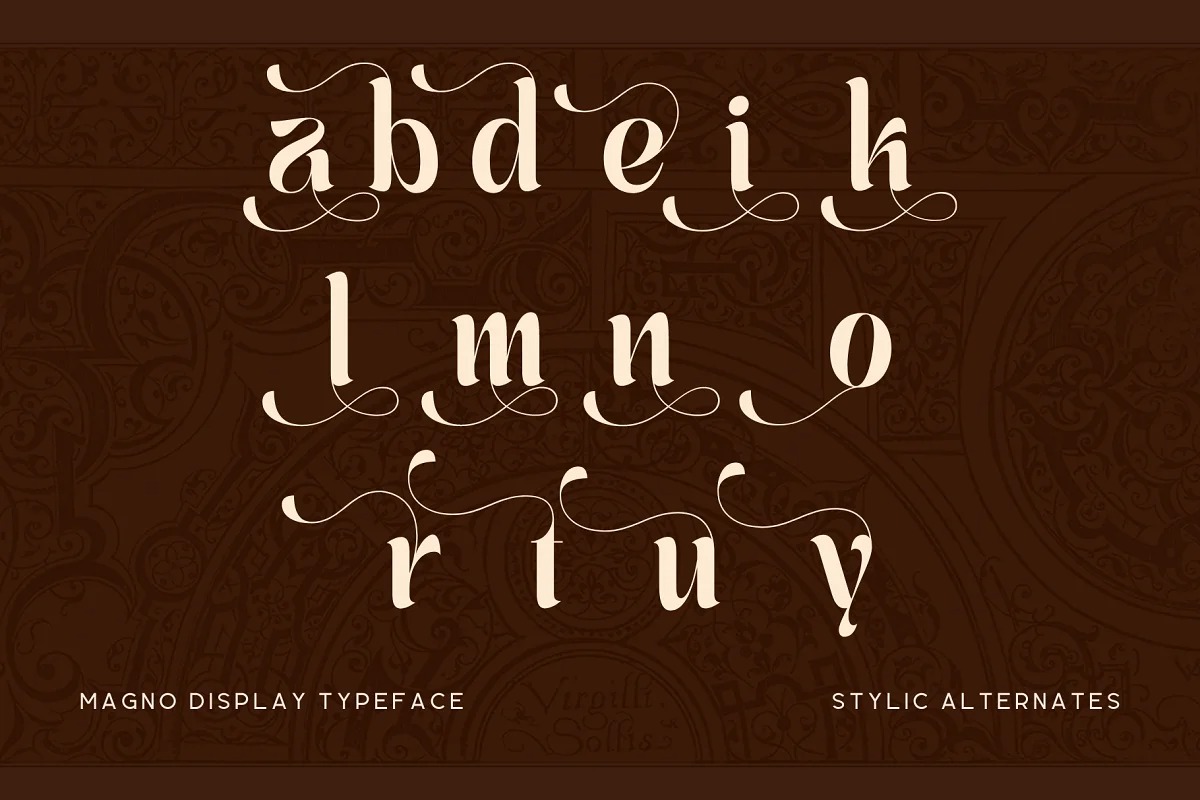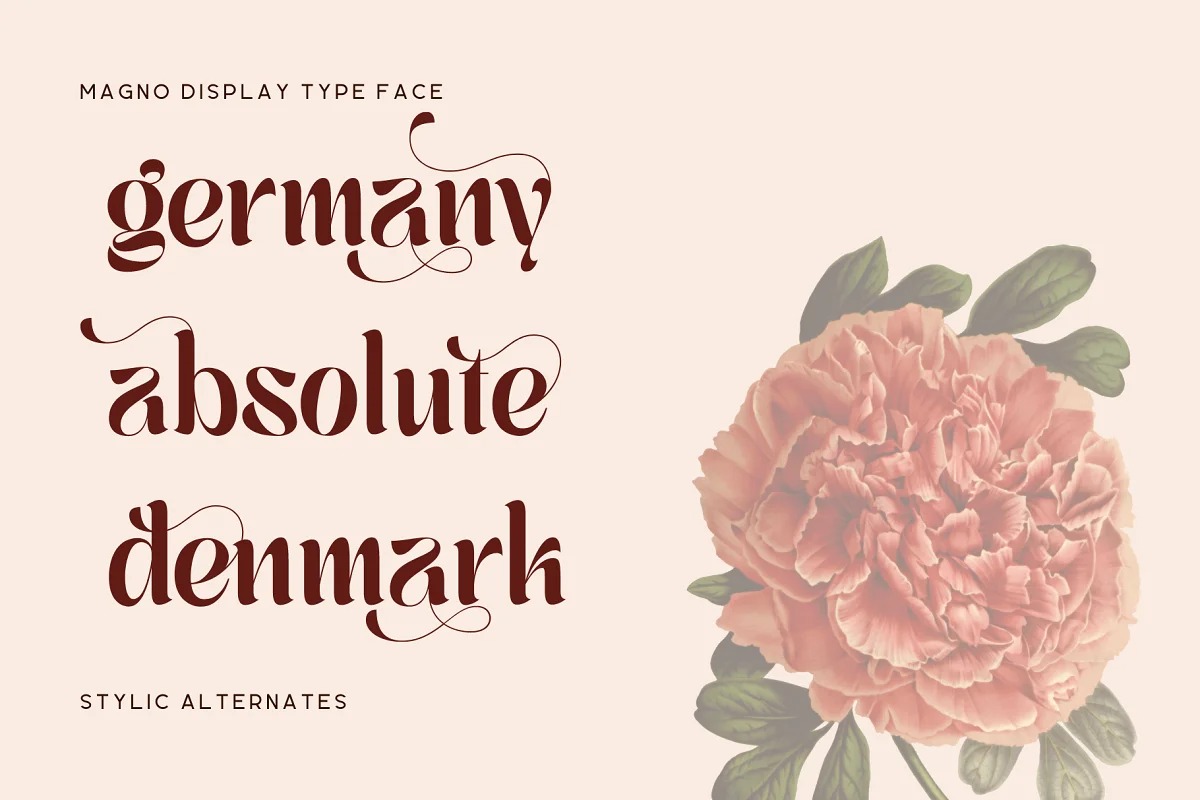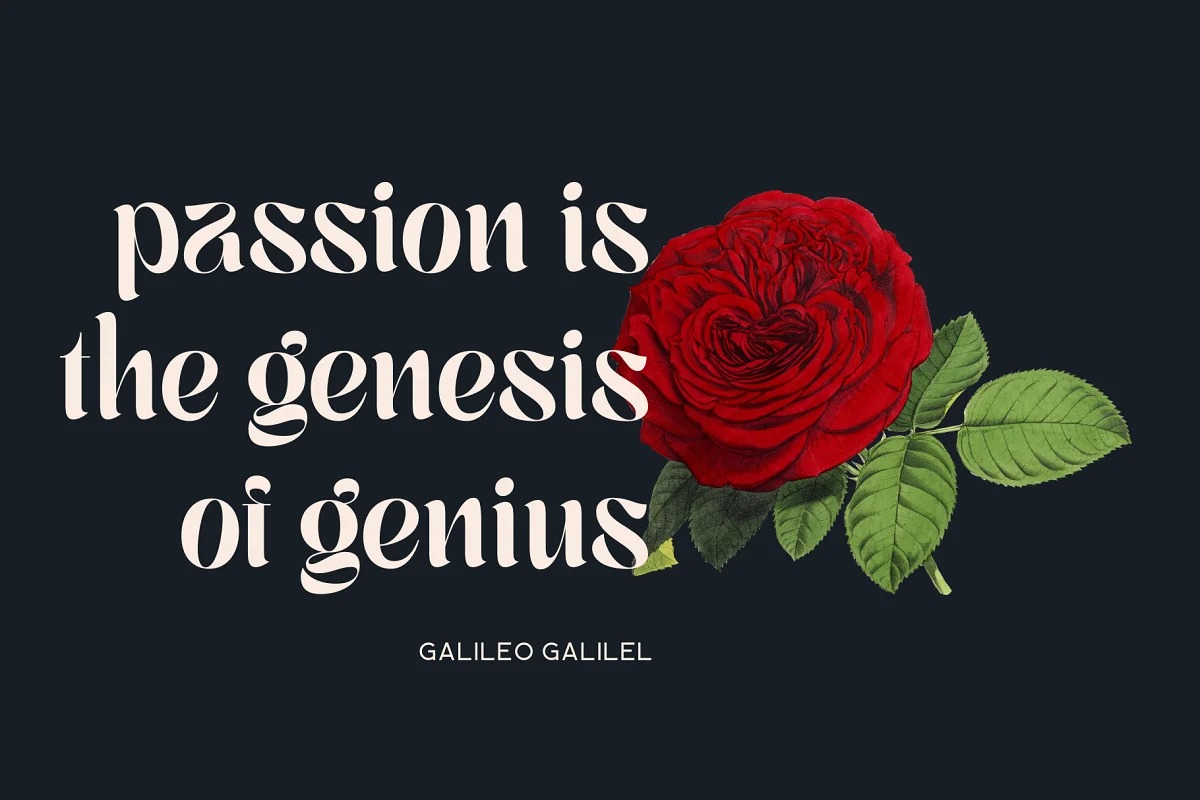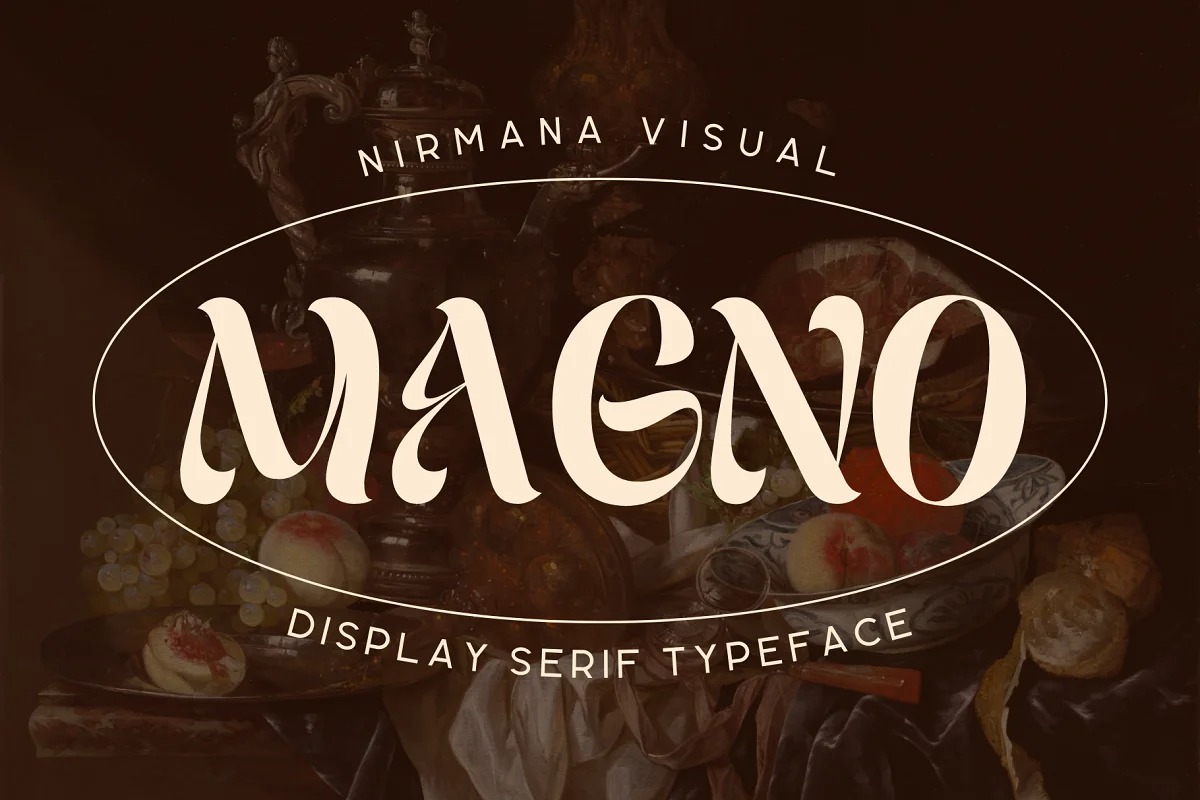
Magno Display Font
This is a serif display typeface created by Nirmana Visual with a unique stylistic character set and ligature. Magno offers beautiful typographic harmony for a diversity of design projects, including logos & branding, social media posts, advertisements & product designs.